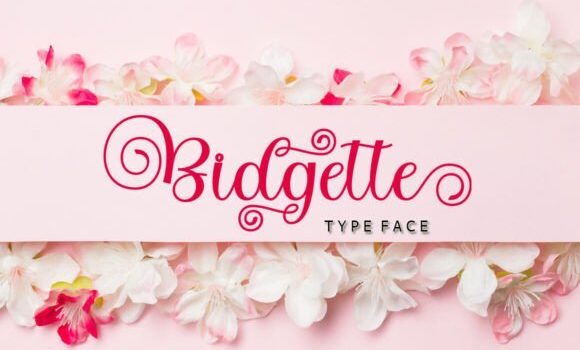
bidgette
Bidgette Font – Free Download Introduction to Bidgette Font Bidgett Script is a beautiful script font with many alternative styles, this font looks natural, elegant, and perfect for extraordinary projects. 📸 Preview Gallery 6 images 📌 Product Name Bidgette Font